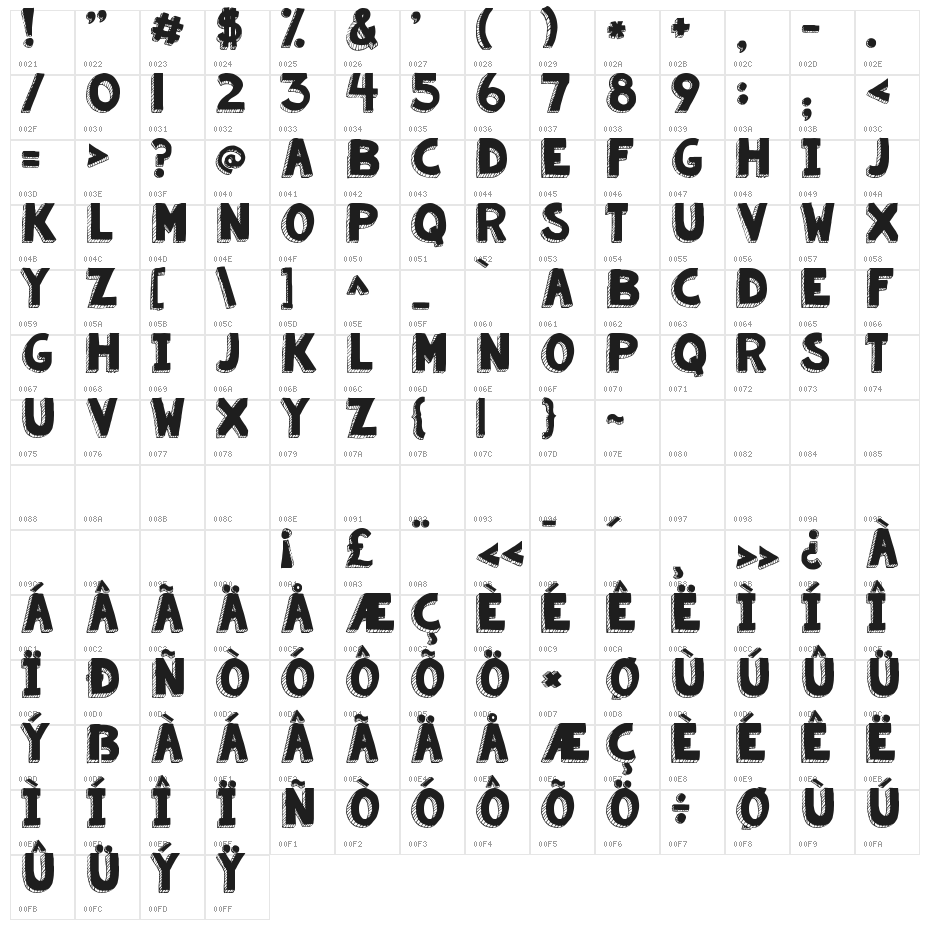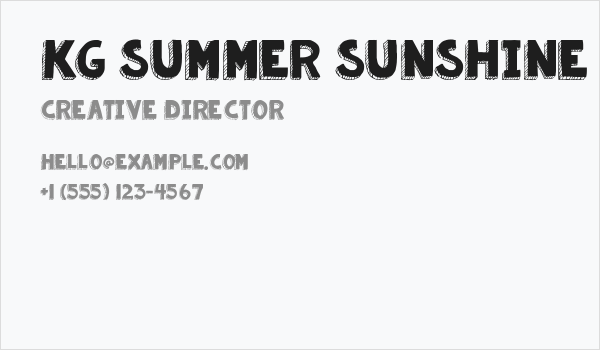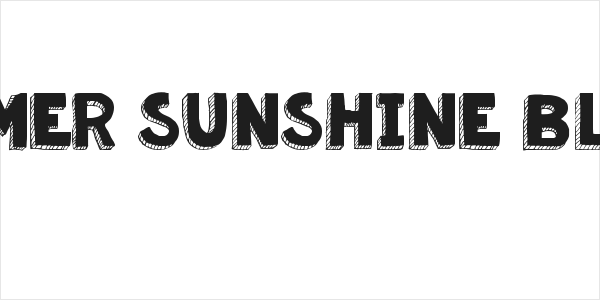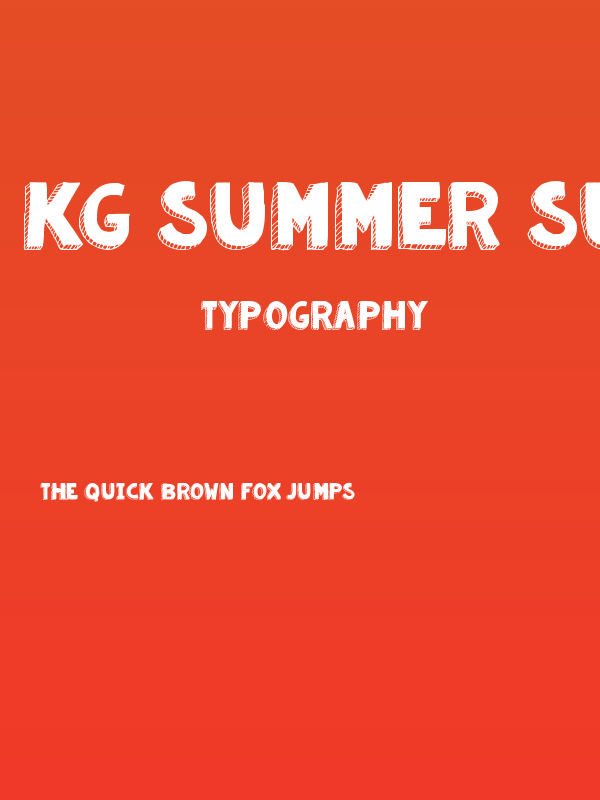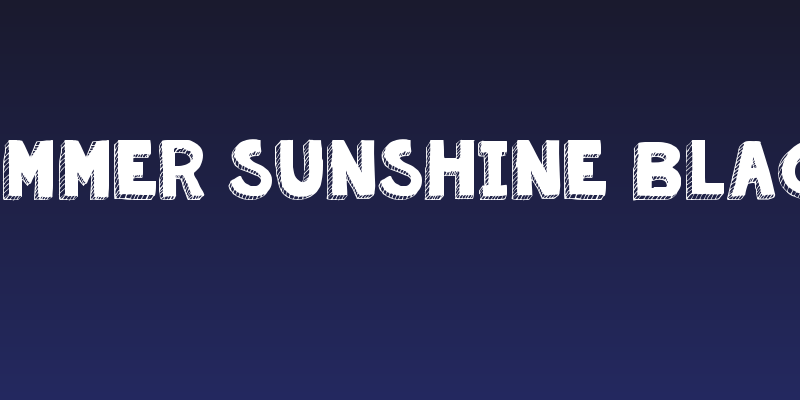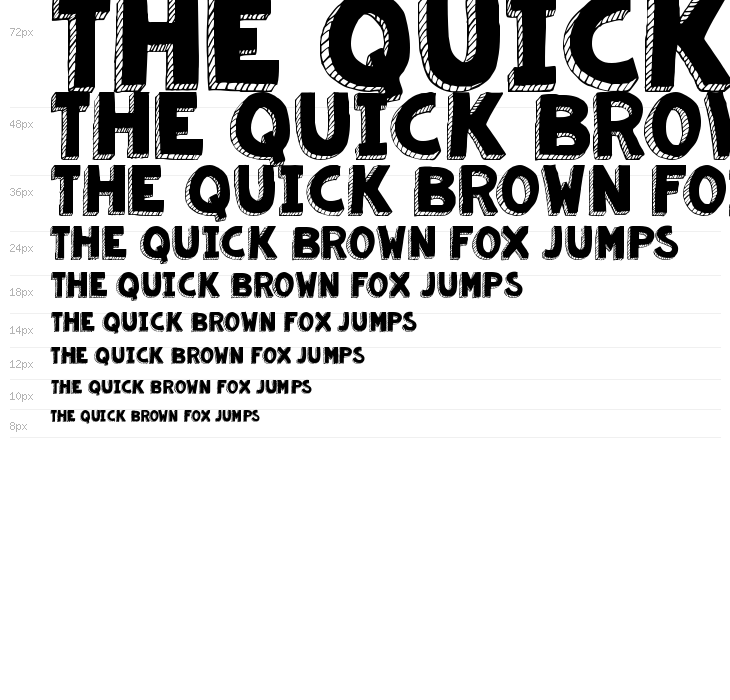
KG Summer Sunshine Blackout Font
KG Summer Sunshine Blackout Description
This playful and bold font features a unique hand-drawn style with a shadow effect that adds depth and dimension. The characters are thick and rounded, giving them a friendly and approachable appearance. The shadowing is consistent across all letters and numbers, creating a cohesive look. This font is highly legible, even at smaller sizes, and its distinctive style makes it stand out. The uppercase and lowercase letters are well-proportioned, and the numerals are clear and easy to read. Special characters are included, maintaining the same playful aesthetic. The overall design is both fun and functional, making it suitable for a variety of creative projects.
| Overall Style | Playful, Fun |
| Proposed Projects | Ideal for children's books, playful branding, posters, and greeting cards. |